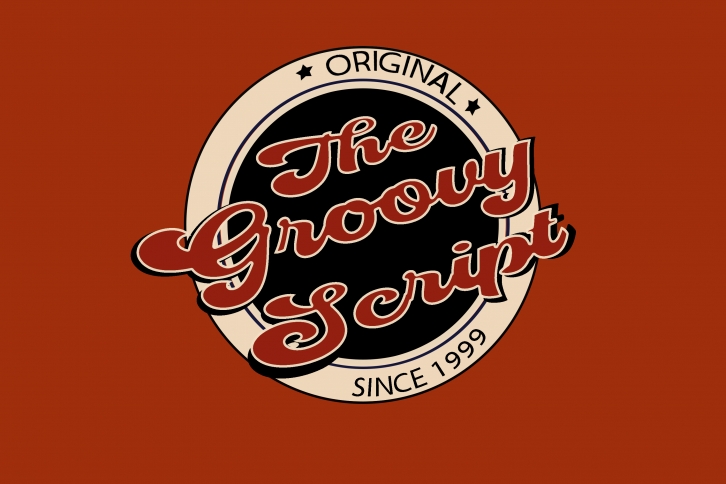
The Groovy is a stylish and retro handwritten font.
Fall for its ravishing style and use it to create gorgeous designs. This font is PUA encoded which means you can access all glyphs and swashes with ease!